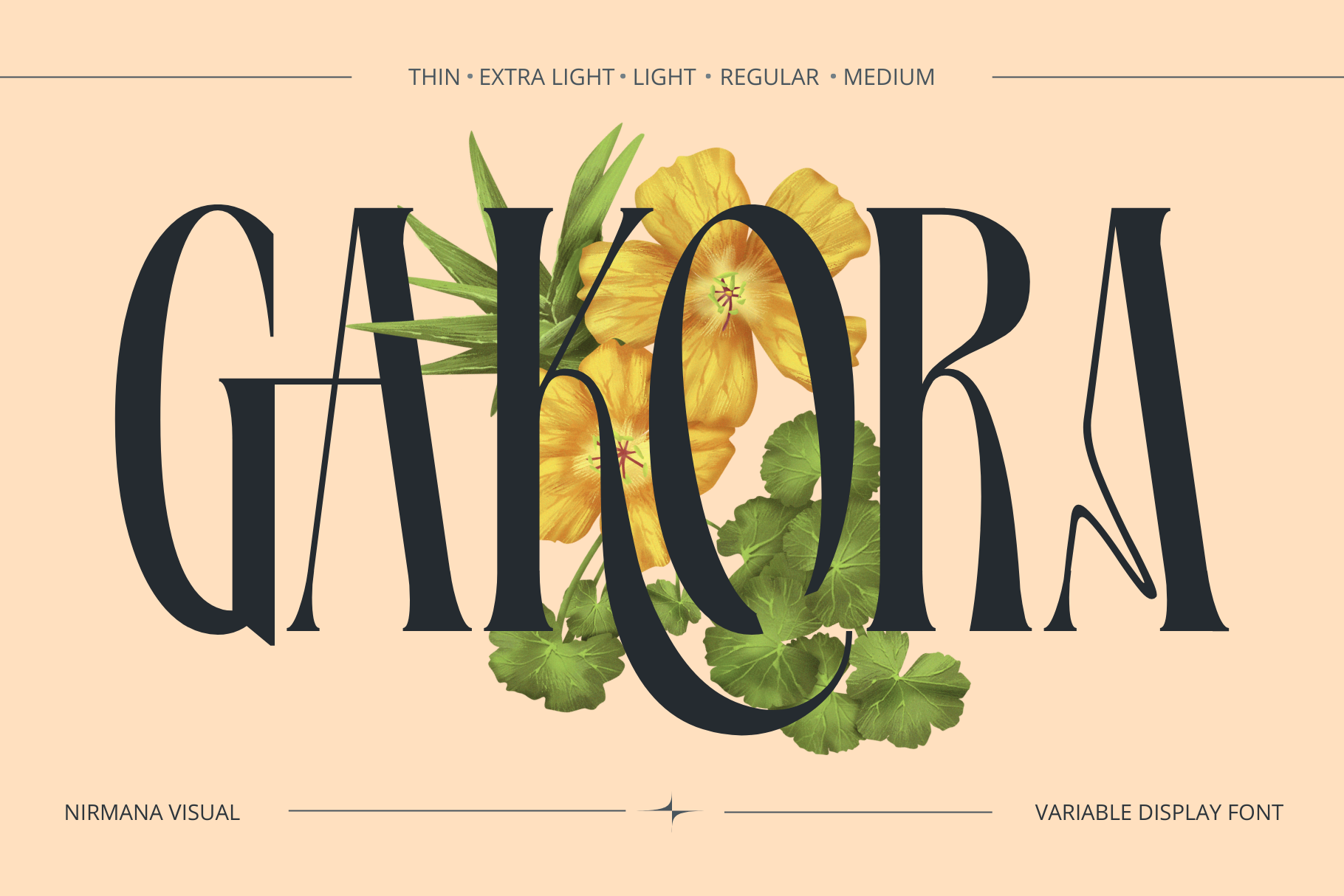
Gakora - Branding Logo Variable Font
Gakora Font offers beautiful typographic harmony for a diversity of design projects, including logos & branding, social media posts, advertisements & product designs.
What you get : Variable Font Family with 5 fonts in total. THIN - EXTRA LIGHT - REGULAR - MEDIUM